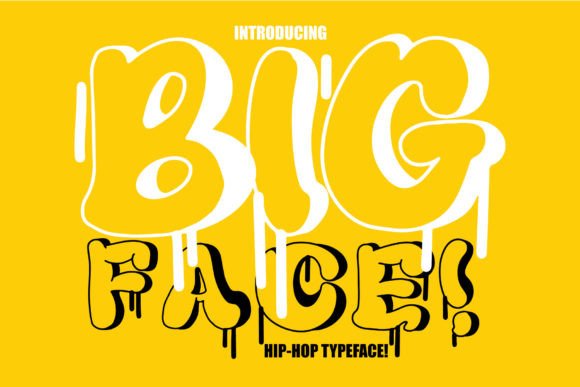
The Big Face! Factor: Why This Font Stole My Heart
I still remember the day I stumbled upon Big Face! while working on a children’s activity project. I was on a mission to find the perfect font that embodied playfulness and authenticity. As a designer, I know how crucial it is to choose a font that resonates with your project’s tone and audience. In that moment, Big Face! was like a breath of fresh air – its bubbly, graffiti-style charm instantly captured my attention.
An Honest Review: The Good and the Quirky
What I Love About Big Face!
- ✨ Playful and Fun: Big Face! is the epitome of playfulness, making it perfect for children’s activities, school projects, or any design that needs a youthful touch.
- ✅ Authentic Graffiti Feel: The font’s graffiti-style design gives it an authentic, street-art vibe that’s hard to find in other display fonts.
- 💡 Versatile: Despite its bold style, Big Face! can be used in various contexts, from posters and flyers to digital graphics and crafts.
While Big Face! is an amazing font, it’s not without its quirks. For instance, ⚠️ some characters may appear a bit distorted when used at very small sizes or in certain contexts. Additionally, 🤔 the font’s bold style may not be suitable for body text or long paragraphs.
The Designer Inspiration Behind Big Face!
Big Face! was inspired by the vibrant street art scene of the 1980s. Its designer, a self-proclaimed graffiti enthusiast, wanted to capture the essence of urban art in a digital font. With Big Face!, you get a taste of that rebellious spirit and creative energy.
| Font Name | Big Face! Font |
| Author | KtwoP |
Q: Is Big Face! suitable for body text?
A: No, Big Face! is a display font and may not be suitable for body text or long paragraphs. Its bold style is best used for headlines or titles.